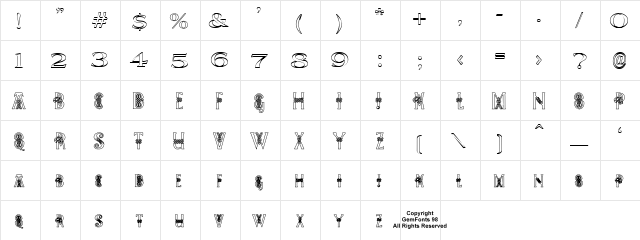
Pee's Celtic outline Regular
Design Context for Pee's Celtic outline Typeface
Pee's Celtic outline brings ornamental detail and strong personality to headlines and identities, where visual impact matters more than quiet functionality.
Font Pairing: Pair with a clean neutral sans-serif for body copy to let Pee's Celtic outline's character lead without overwhelming the composition.
Pro Tip: Treat Pee's Celtic outline as the centrepiece of your typographic hierarchy. One strong heading set in a decorative face can carry an entire layout.